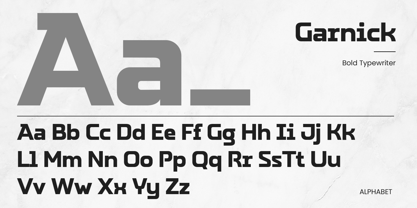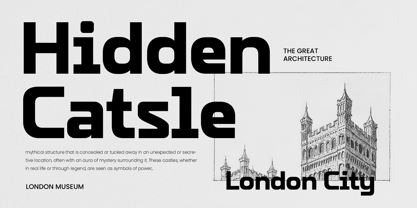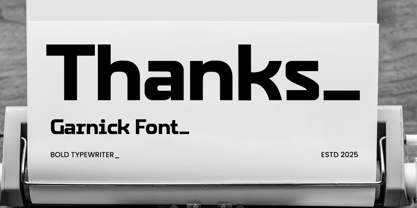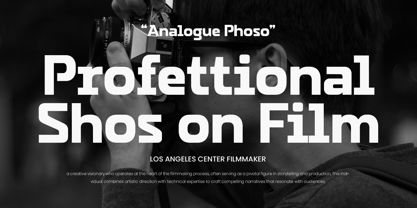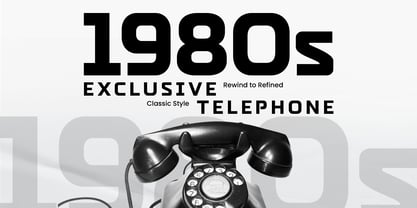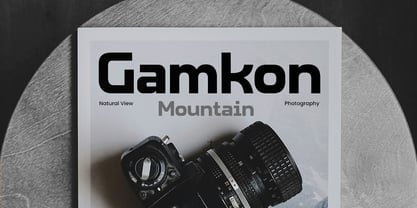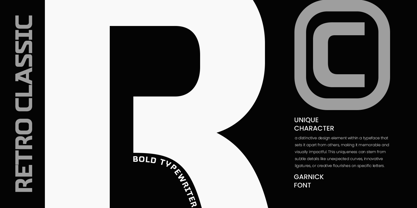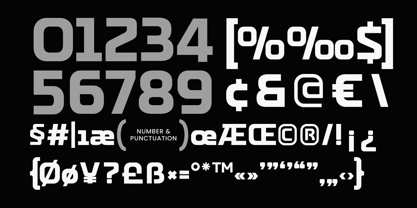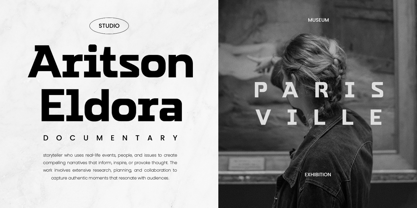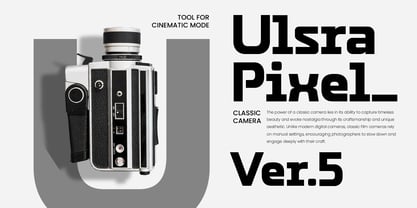
Garnick
por Sensatype Studio
La familia tipográfica Garnick fue diseñada por Zamroni Hamzah y publicada por Sensatype Studio. Garnick contiene 1 estilos. Más información sobre esta familia
Garnick is a bold typewriter font that captures the nostalgic charm of classic typewritten text. Its sturdy letterforms and subtle texture bring a retro vibe to your designs, making it perfect for vintage posters, editorial layouts, and creative branding. Inspired by old-school typewriters, Garnick delivers authenticity with a modern twist.
This font adds personality and character to your projects, whether you're designing for print or digital. Its bold strokes ensure readability, while the uneven edges mimic the natural imperfections of real typewriter keys. Garnick works well for headlines, quotes, and branding materials that need a timeless appeal.
Step back in time with Garnick and give your work a nostalgic feel that resonates with audiences. It's the ideal choice for designers looking to combine vintage aesthetics with contemporary design trends.
Garnick Bold Typewriter Font Features:
• Old-style Characters Ready
• Punctuation, Number, and Symbol
• Uppercase and Lowercase
• Opentype Features
Diseñadores: Zamroni Hamzah
Fundición: Sensatype Studio